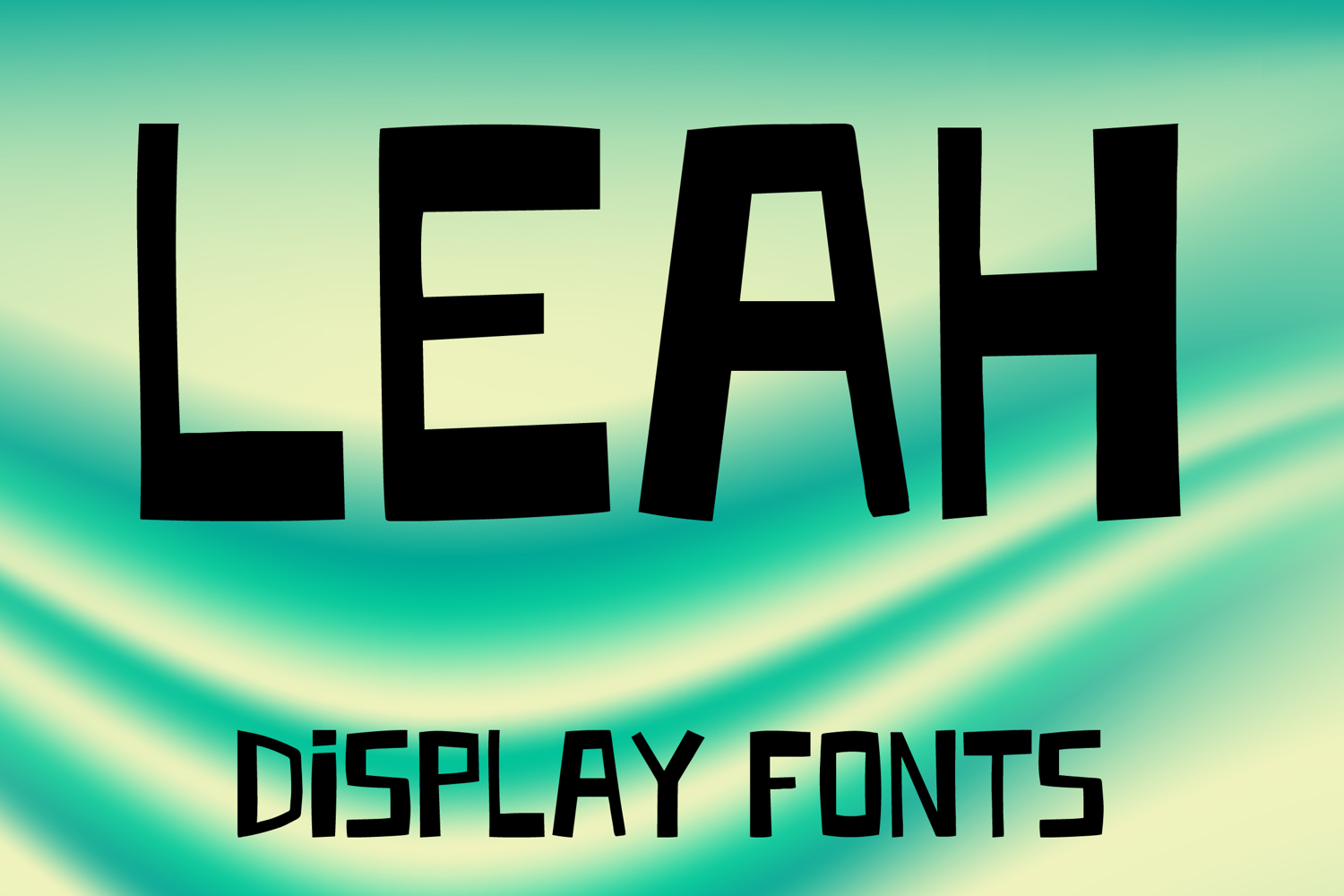
LEAH
LEAH is a bold display font with a tall geometric style and strong handcrafted character. Its uppercase letterforms feature thick strokes, slightly irregular edges, and a condensed structure that creates a modern, striking, and memorable look. Designed with uppercase letters A–Z and numbers 0–9, LEAH is perfect for branding, posters, packaging, logos, headlines, and social media graphics that need a clean yet eye-catching statement.